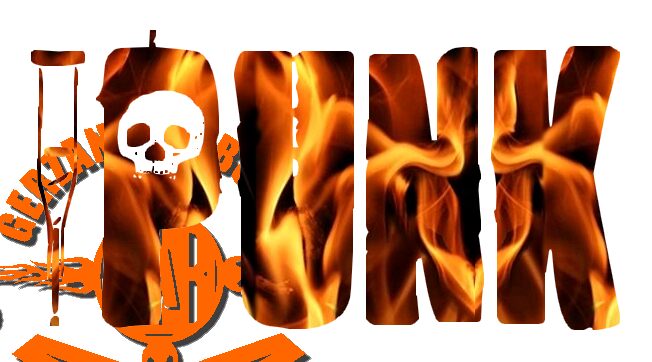
1 Punk by Gerzan Borge of Triton Company is a free distorted display font with towering, uneven capitals. Its dense silhouettes buckle at the edges, with ragged cuts and misplaced gaps breaking through the strokes. A stark skull motif gives the lettering a confrontational punk identity.
Merchandise is an obvious home for this abrasive style, especially band shirts and skateboard graphics. It also suits concert posters and album packaging, where the skull becomes part of the artwork.
1 Punk — Presentazione del carattere